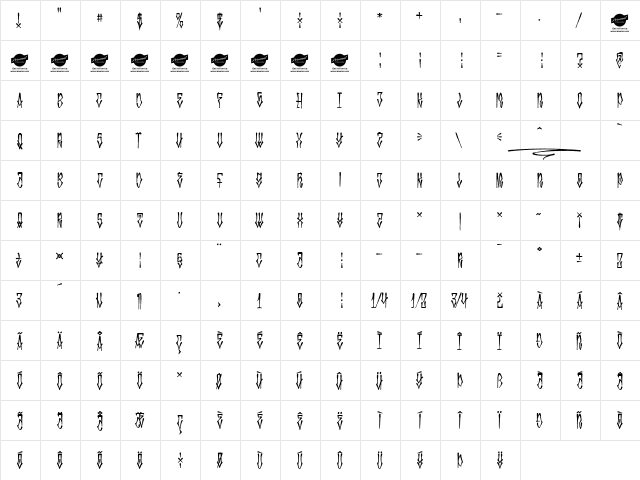
Monsta Tag Personal Regular
| Foundry | M害 Greb䣫 |
| Designer | M害 Greb䣫 |
Design Context for Monsta Tag Personal Typeface
Monsta Tag Personal is a composed and adaptable typeface that performs quietly and consistently across a wide range of design contexts.